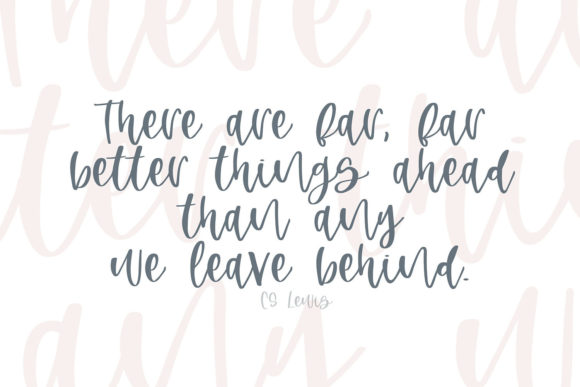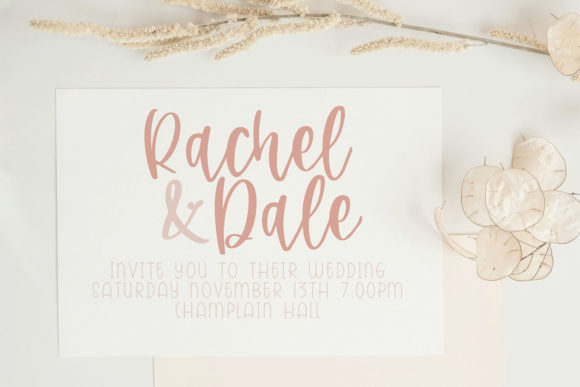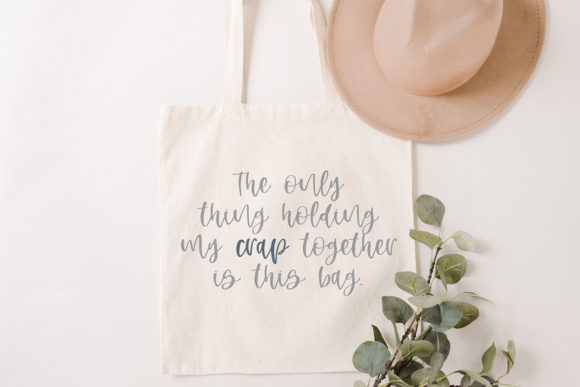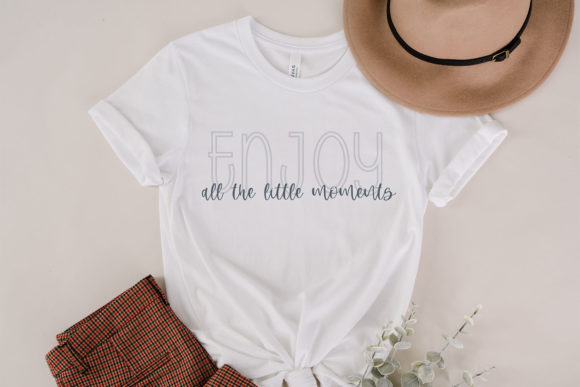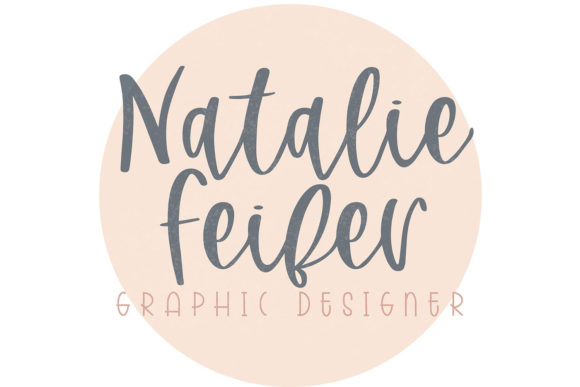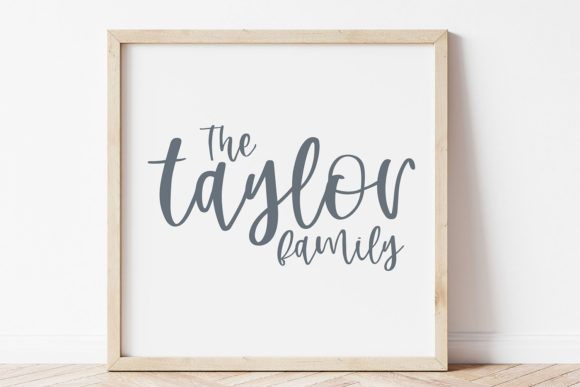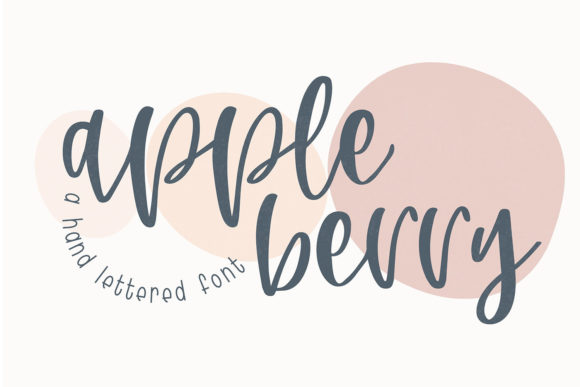
Introducing Appleberry Font: The Sweet and Cursive Handwritten Font for Your Design Needs
Are you a designer or crafter looking for a font that can add a touch of sweetness and romance to your projects? Look no further than Appleberry Font! This beautiful, cursive handwritten font is perfect for a variety of design ideas and is sure to bring a joyful and romantic feel to your work.
What is Appleberry Font?
Appleberry Font is a sweet and cursive handwritten font that is designed to bring a touch of elegance and whimsy to your designs. With its gentle and flowing curves, this font is perfect for creating beautiful and eye-catching text that will capture the attention of your audience. Whether you’re working on a branding project, a wedding invitation, or a craft project, Appleberry Font is the perfect choice.
Features of Appleberry Font
So, what makes Appleberry Font so special? Here are just a few of its key features:
• Sweet and Cursive Design: Appleberry Font has a beautiful, cursive design that is sure to add a touch of sweetness and romance to your projects.
• Handwritten Style: This font has a handwritten style that gives it a personal and unique feel.
• Gentle and Flowing Curves: The gentle and flowing curves of Appleberry Font make it perfect for creating beautiful and eye-catching text.
• Versatile: This font is versatile and can be used on a variety of design ideas, from branding and advertising to wedding invitations and craft projects.
Uses for Appleberry Font
So, what can you use Appleberry Font for? The possibilities are endless! Here are a few ideas to get you started:
• Branding and Advertising: Use Appleberry Font to create beautiful and eye-catching branding and advertising materials, such as logos, business cards, and brochures.
• Wedding Invitations: This font is perfect for creating beautiful and romantic wedding invitations that will set the tone for your special day.
• Craft Projects: Appleberry Font is great for craft projects, such as making cards, gift tags, and other handmade items.
• Social Media Graphics: Use this font to create beautiful and eye-catching social media graphics that will help you stand out from the crowd.
Why Choose Appleberry Font?
So, why should you choose Appleberry Font for your design needs? Here are just a few reasons:
• Unique and Personal: This font has a unique and personal feel that will help your designs stand out from the crowd.
• Elegant and Whimsical: Appleberry Font has an elegant and whimsical design that is sure to add a touch of sophistication and playfulness to your projects.
• Easy to Read: This font is easy to read, making it perfect for body text and other applications where readability is important.
In conclusion, Appleberry Font is a beautiful and versatile font that is perfect for designers and crafters looking to add a touch of sweetness and romance to their projects. With its sweet and cursive design, gentle and flowing curves, and handwritten style, this font is sure to bring a joyful and romantic feel to your work. Whether you’re working on a branding project, a wedding invitation, or a craft project, Appleberry Font is the perfect choice.